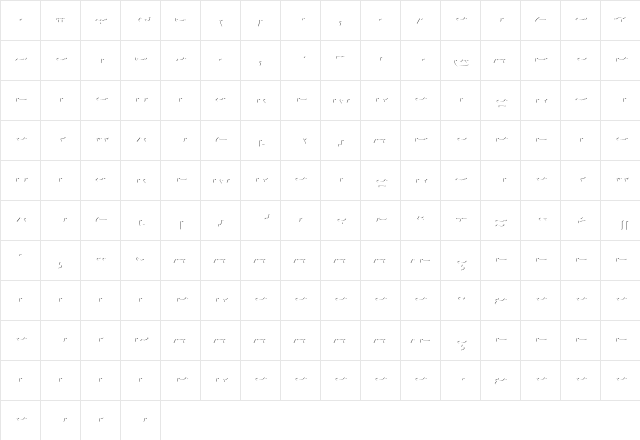
AgreloyInB1 Regular
Design Context for AgreloyInB1 Typeface
AgreloyInB1 is a composed and adaptable typeface that performs quietly and consistently across a wide range of design contexts.
Pro Tip: Use AgreloyInB1 in both headline and body roles to test its range before committing to a single application.